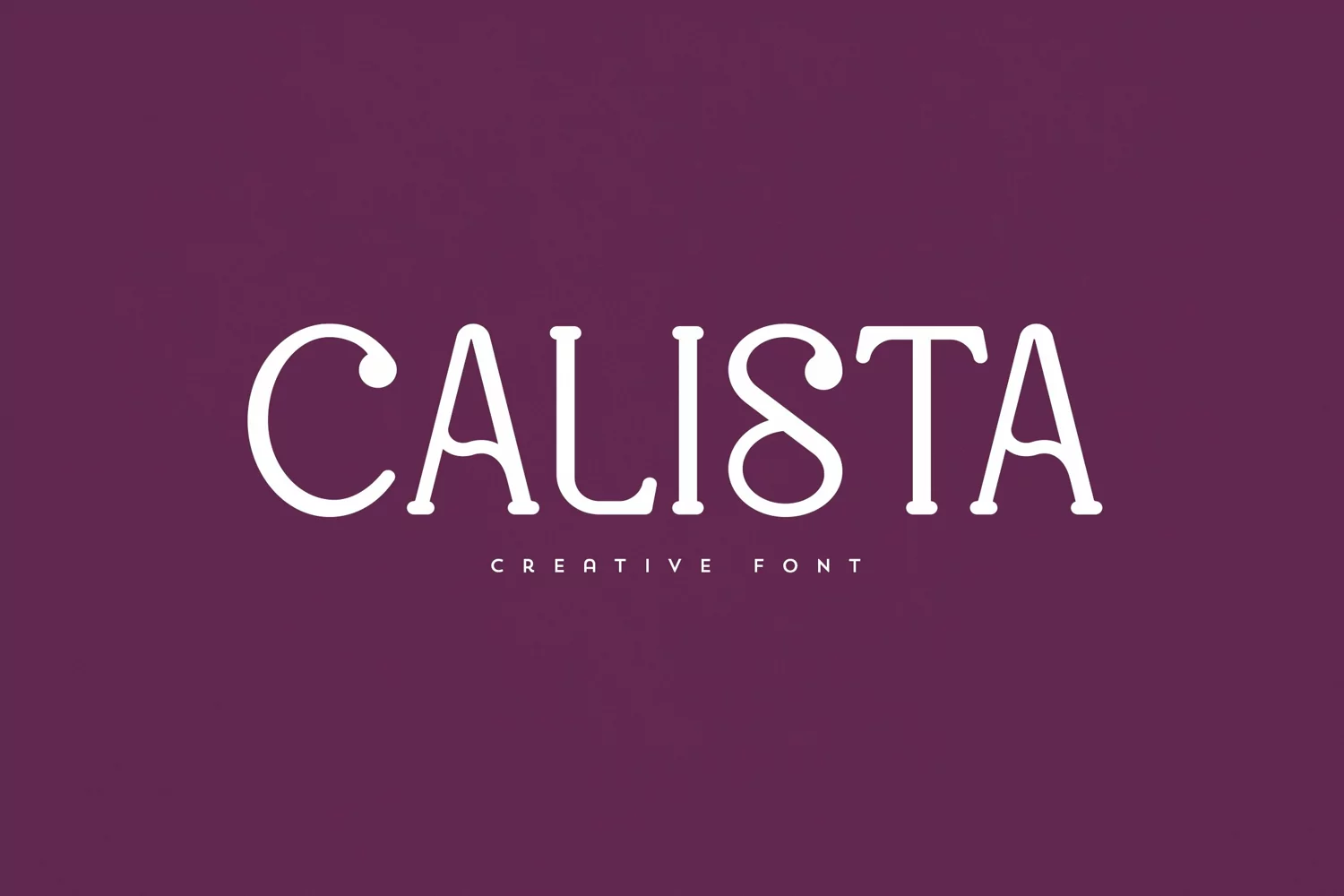
Modern Heritage Minimalist Sans Serif Font
Calista is an elegant and versatile font that will make your typography truly unique! It will enchant every logo, branding, headline, or plain text!
This font is perfect for branding projects, home-ware designs, product packaging, magazine headers – or simply as a stylish text overlay to any background image.
Calista